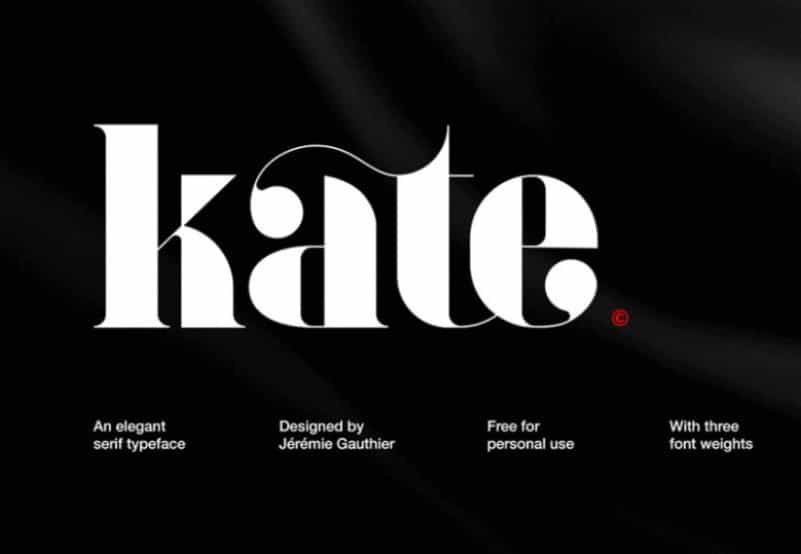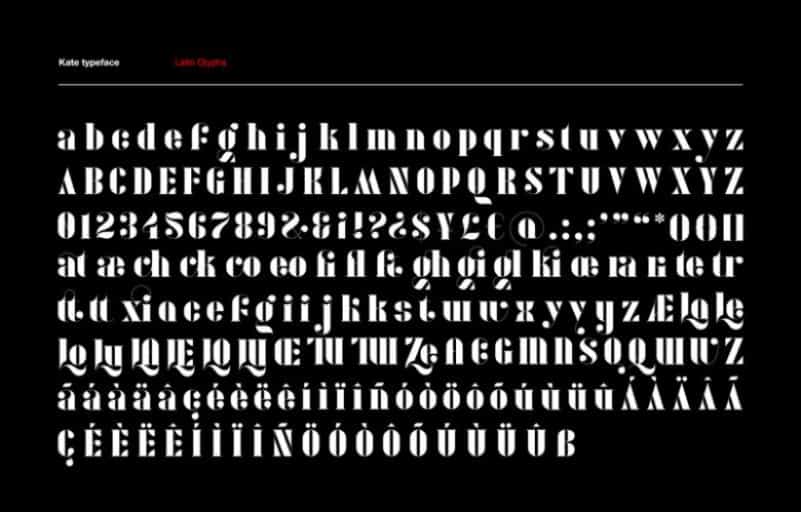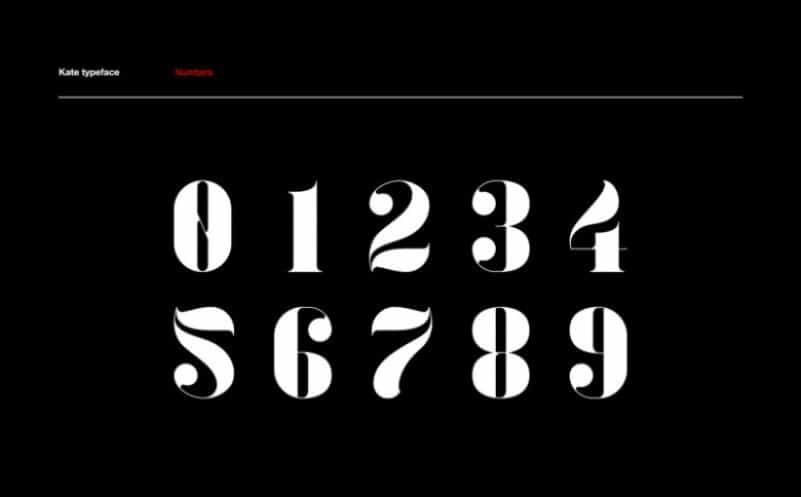
Kate is a elegant serif font family based on luxury and sophistication. Features of the Kate typeface are that it comes with 3 font weights, awesome ligatures, and numerals, many alternates. This font is perfect for : stylish logos, banners, letterheads, carton designs and many other things.